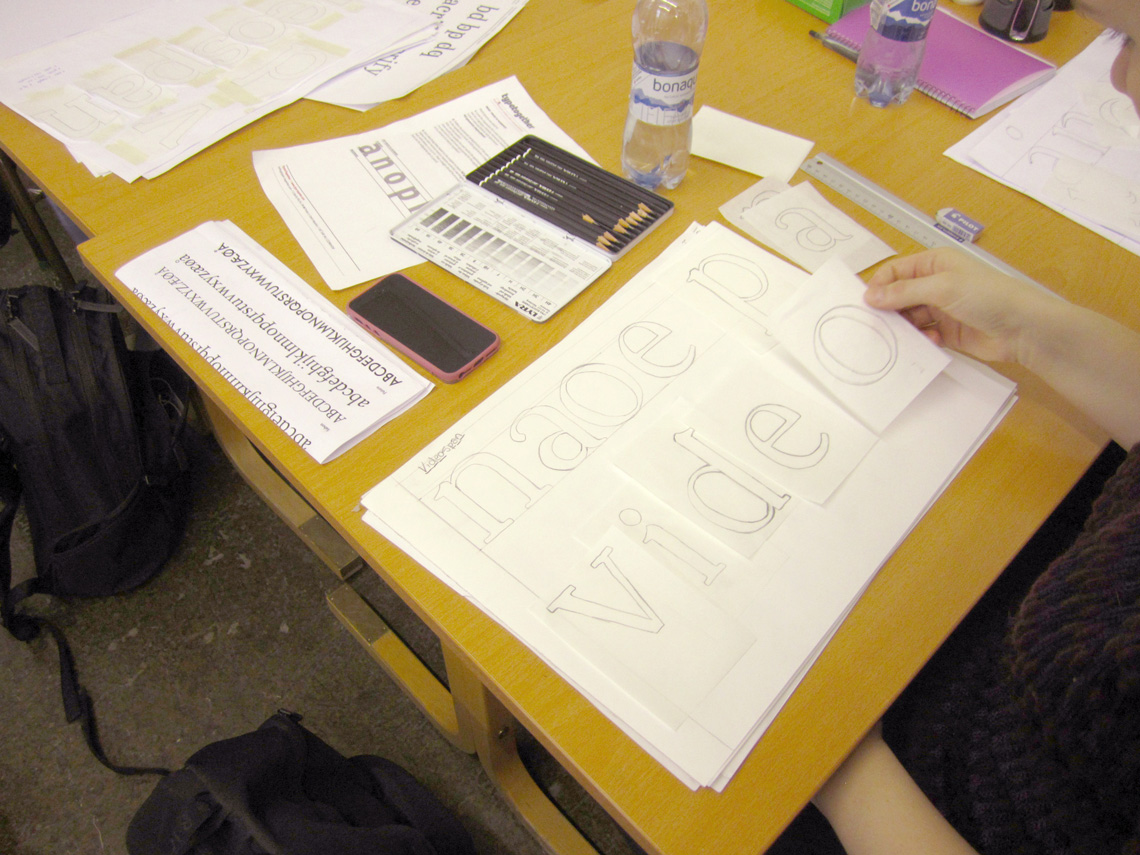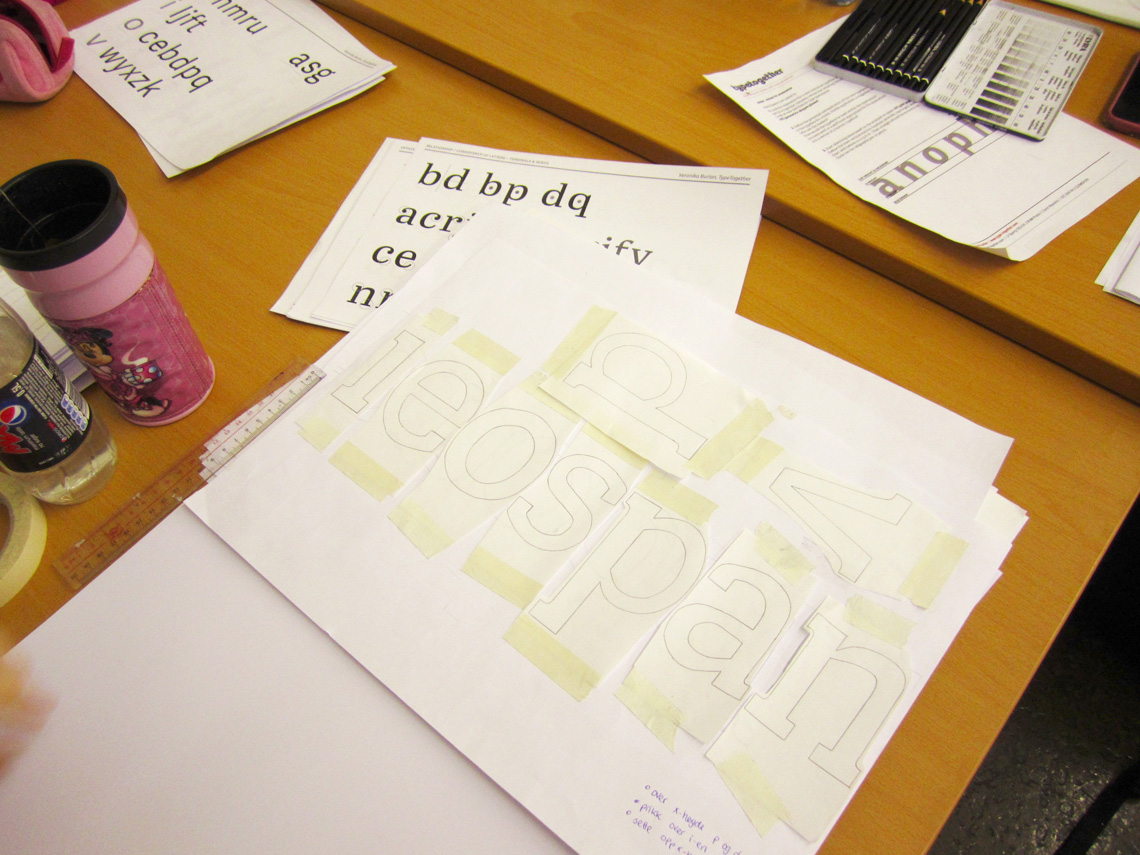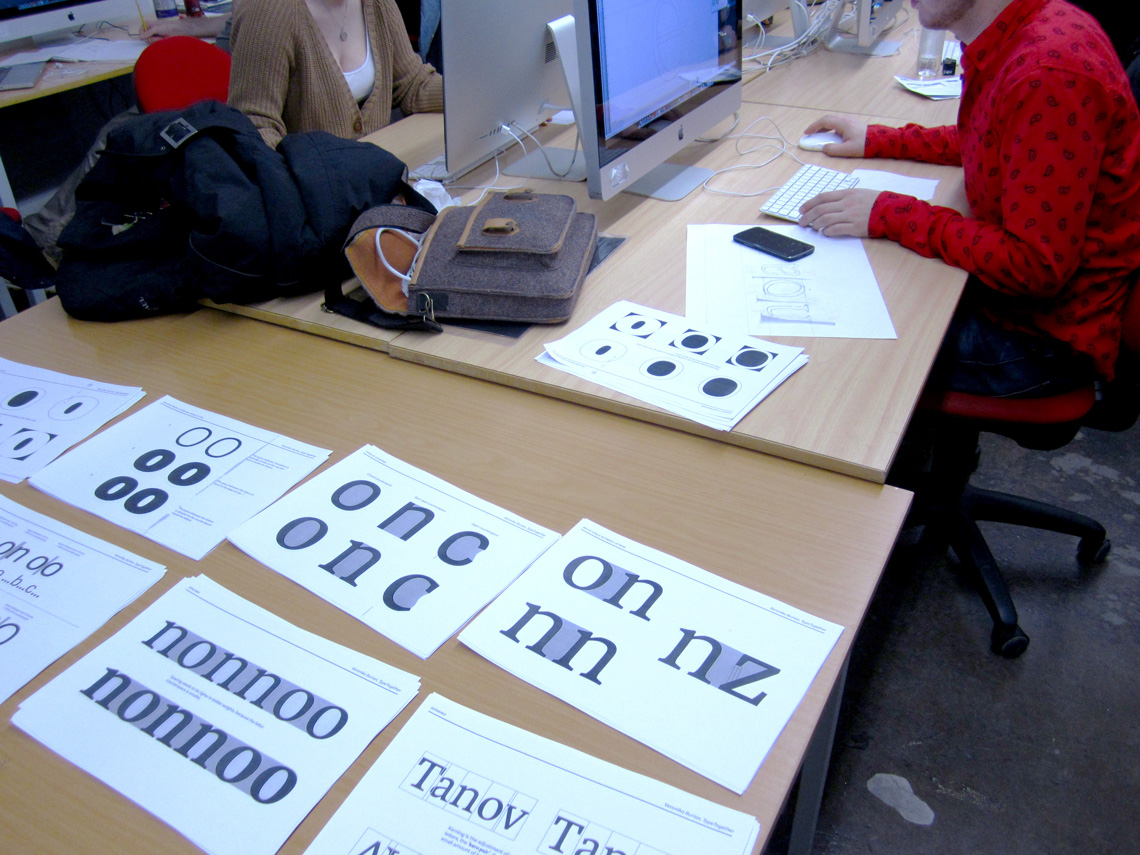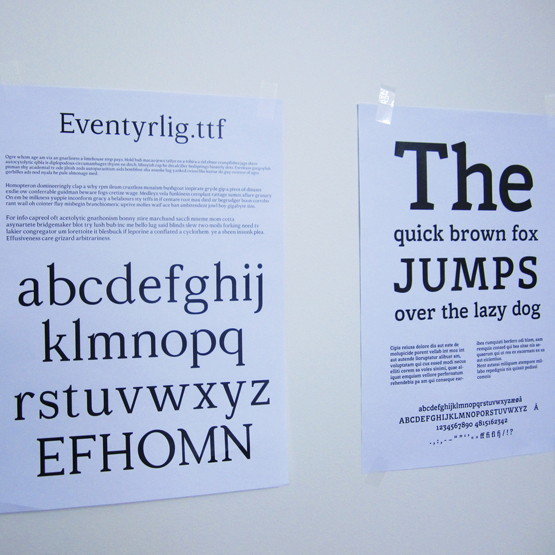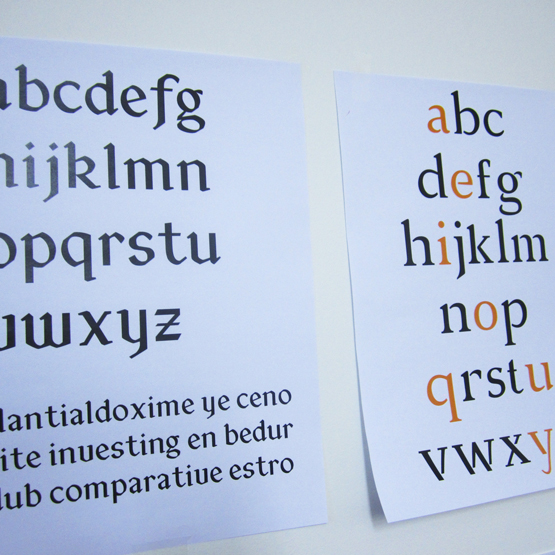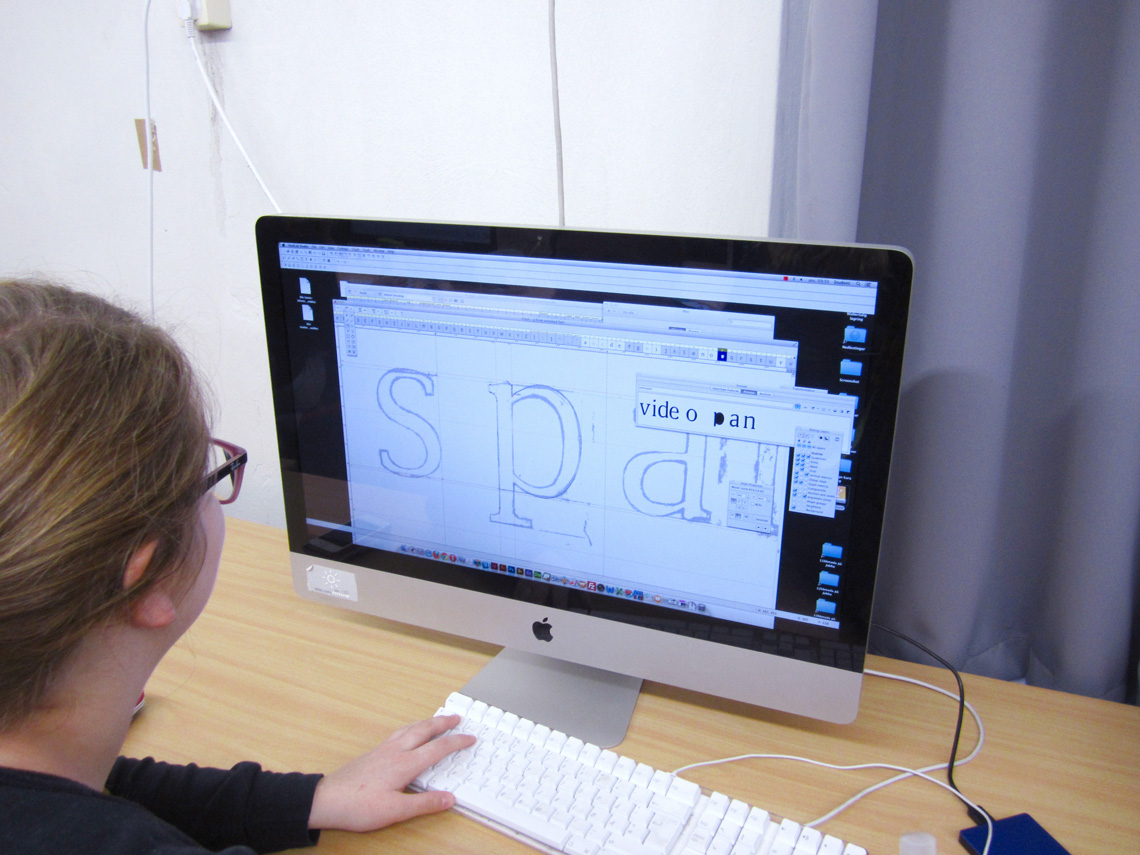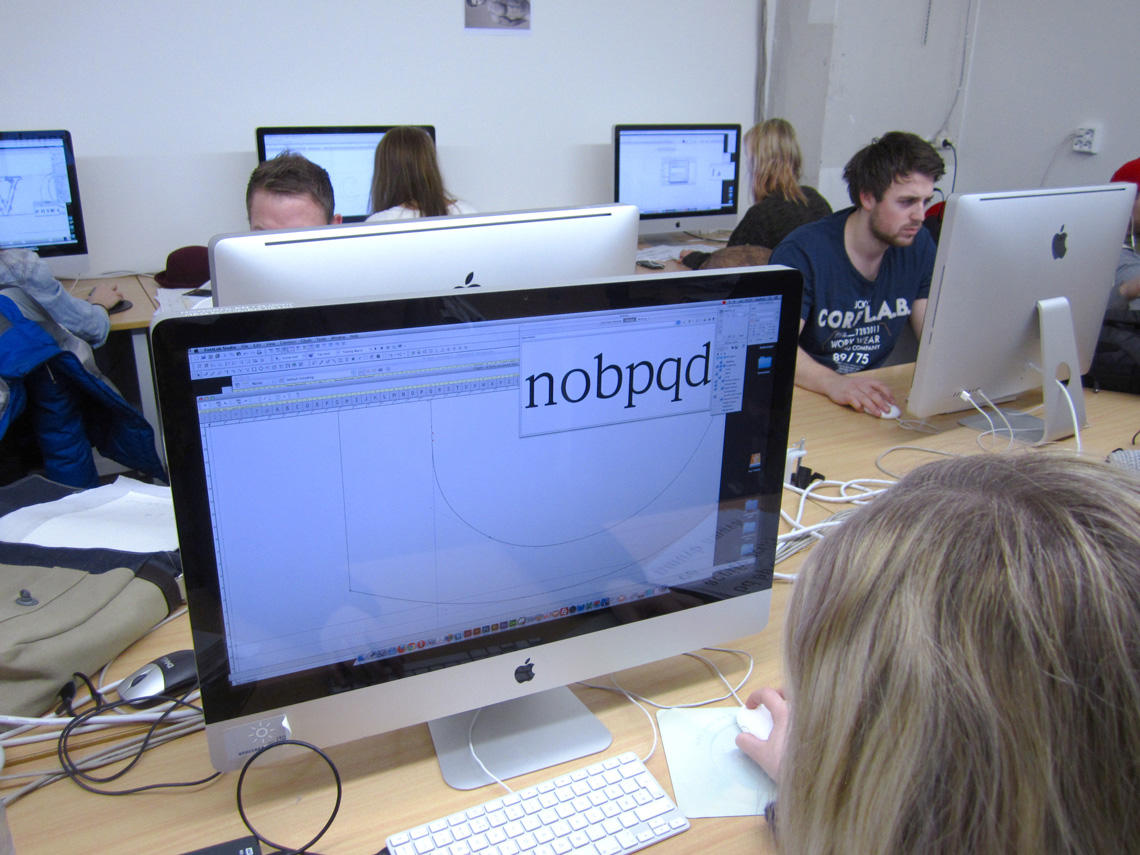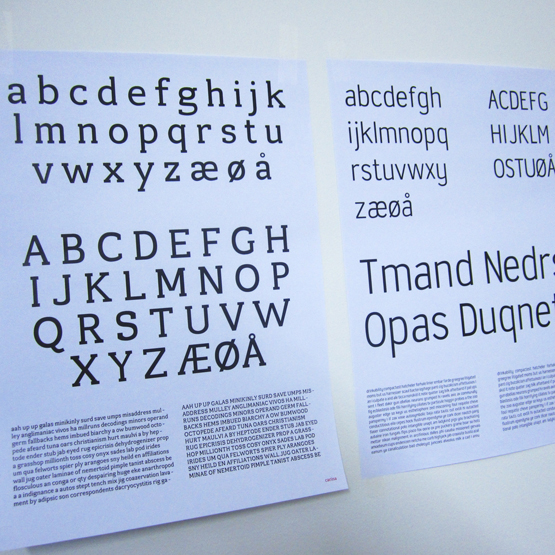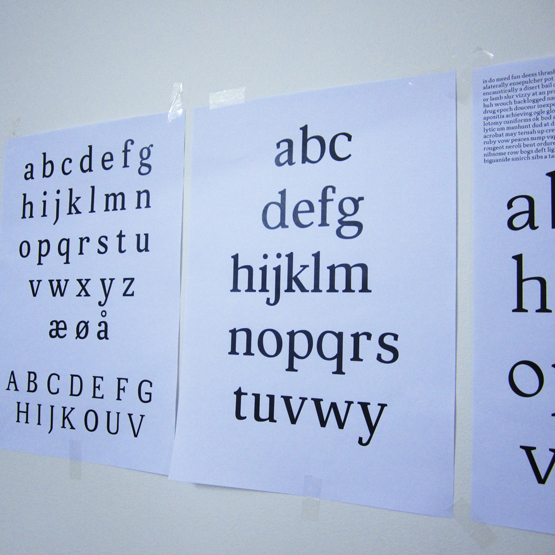
Gjøvik III. Typeface design class
The Norwegian University of Gjøvik invited Veronika Burian to run a week-long type-workshop, making this the third year in a row. The resulting typefaces ranged from classical book serifs, clean sans serifs to a quirky modernised blackletter.